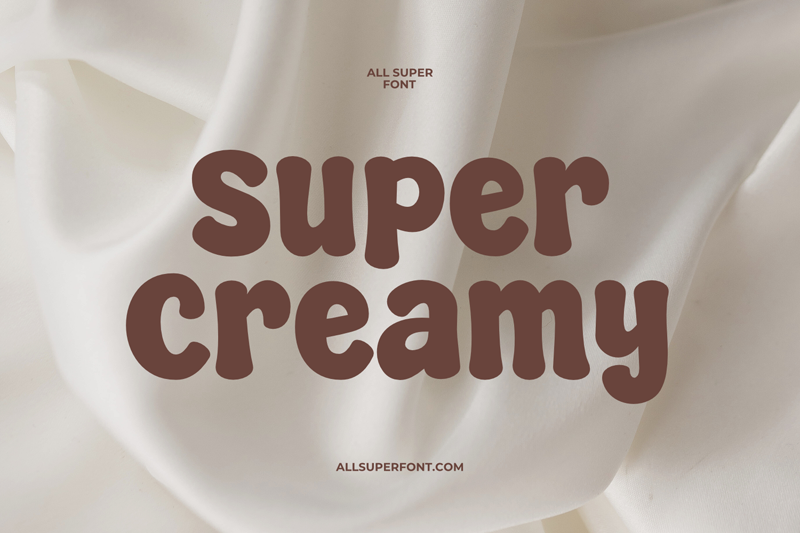
Preview and download Super Creamy Font. Created by fsuarez913 in Fancy Cartoon styles with Free for personal use license.
Font name: | Super Creamy |
This font is for PERSONAL USE ONLY!. If you want to use this font for commercial purposes, you will need to purchase a commercial license. You can purchase a commercial license at https://allsuperfont.com/product/super-creamy/ Super Creamy: Dive into Delicious Design Super Creamy is a font that�s as delightful as its name. It combines playful round letters with a groovy, hand-drawn twist, creating a design that�s both bold and fancy. |